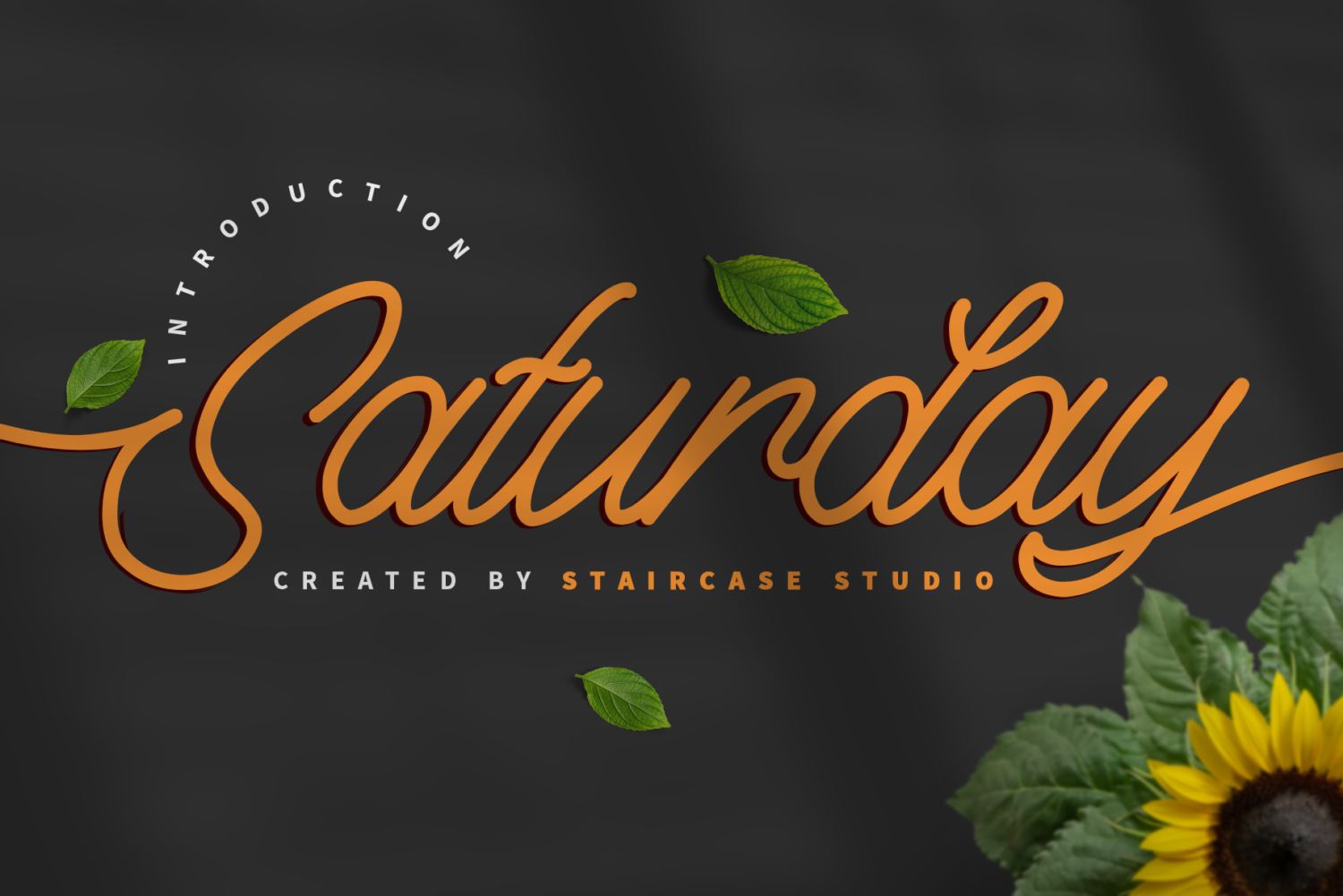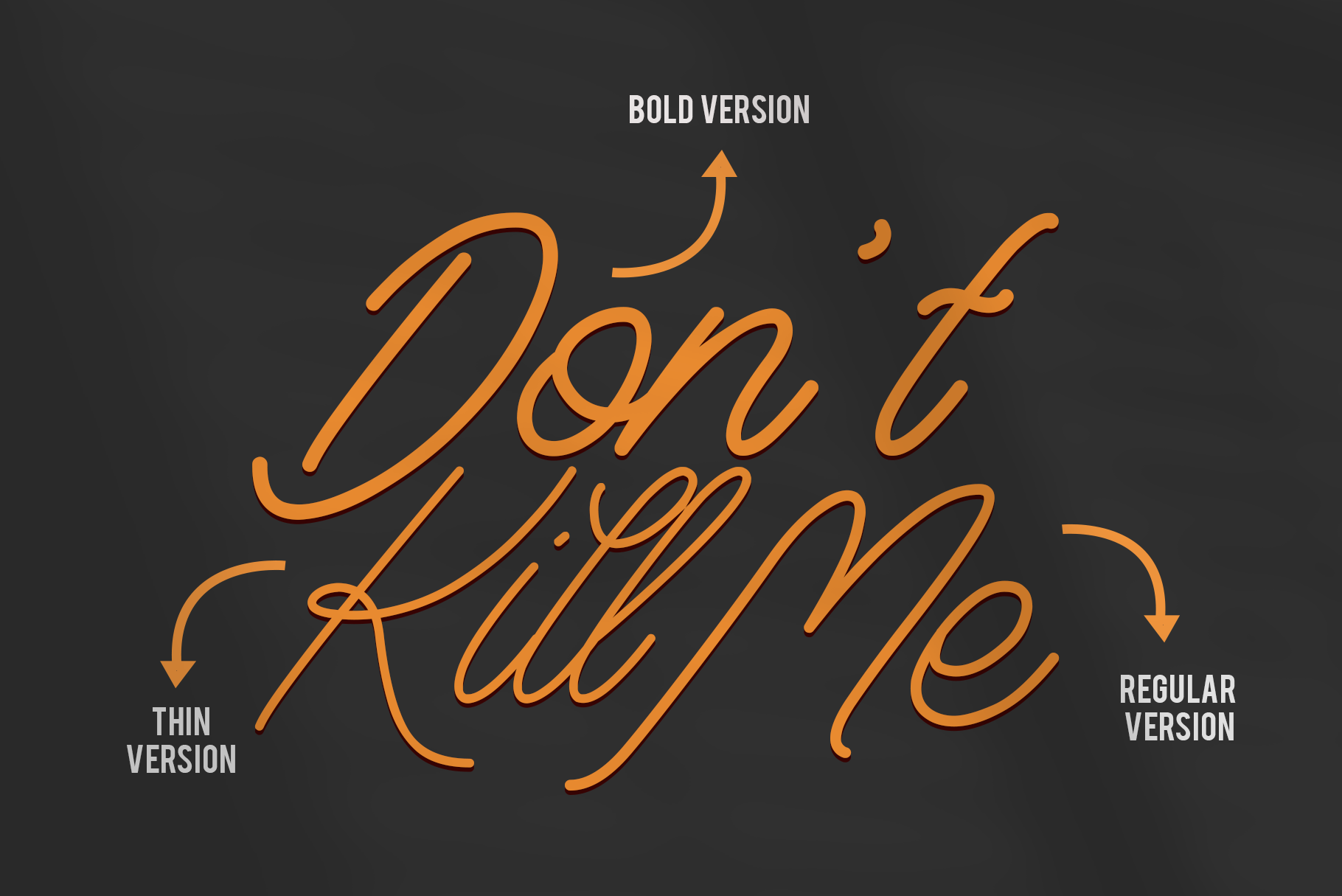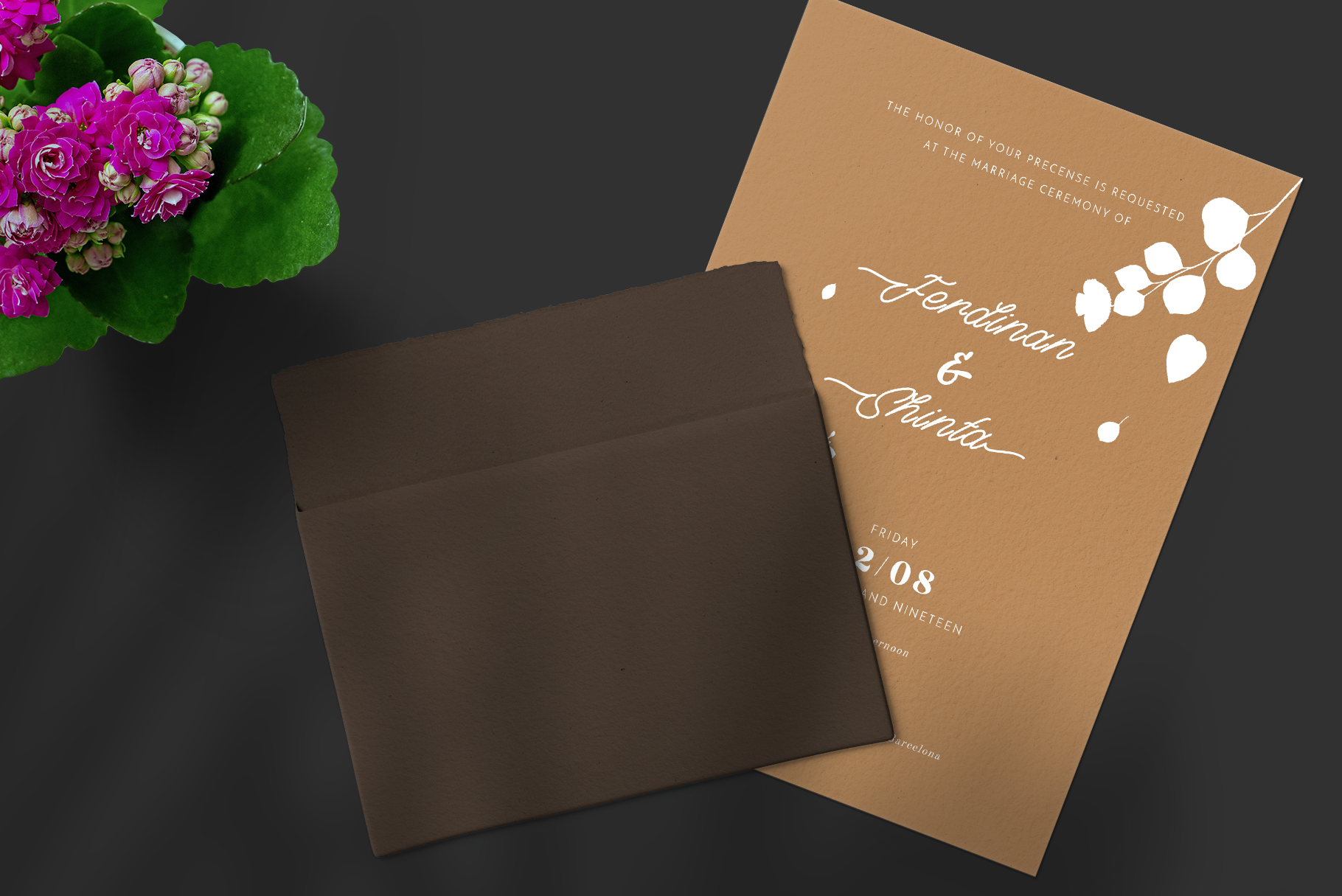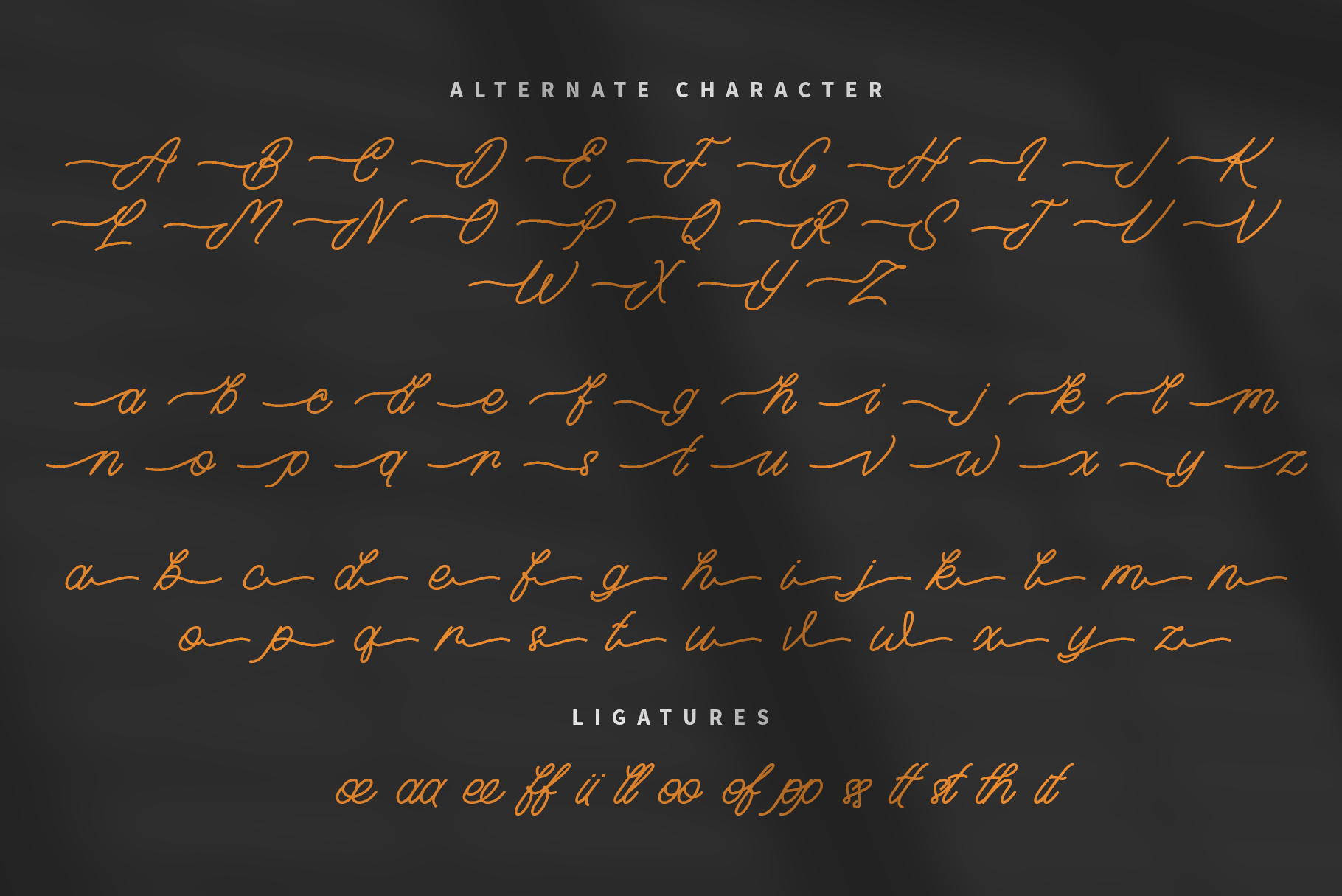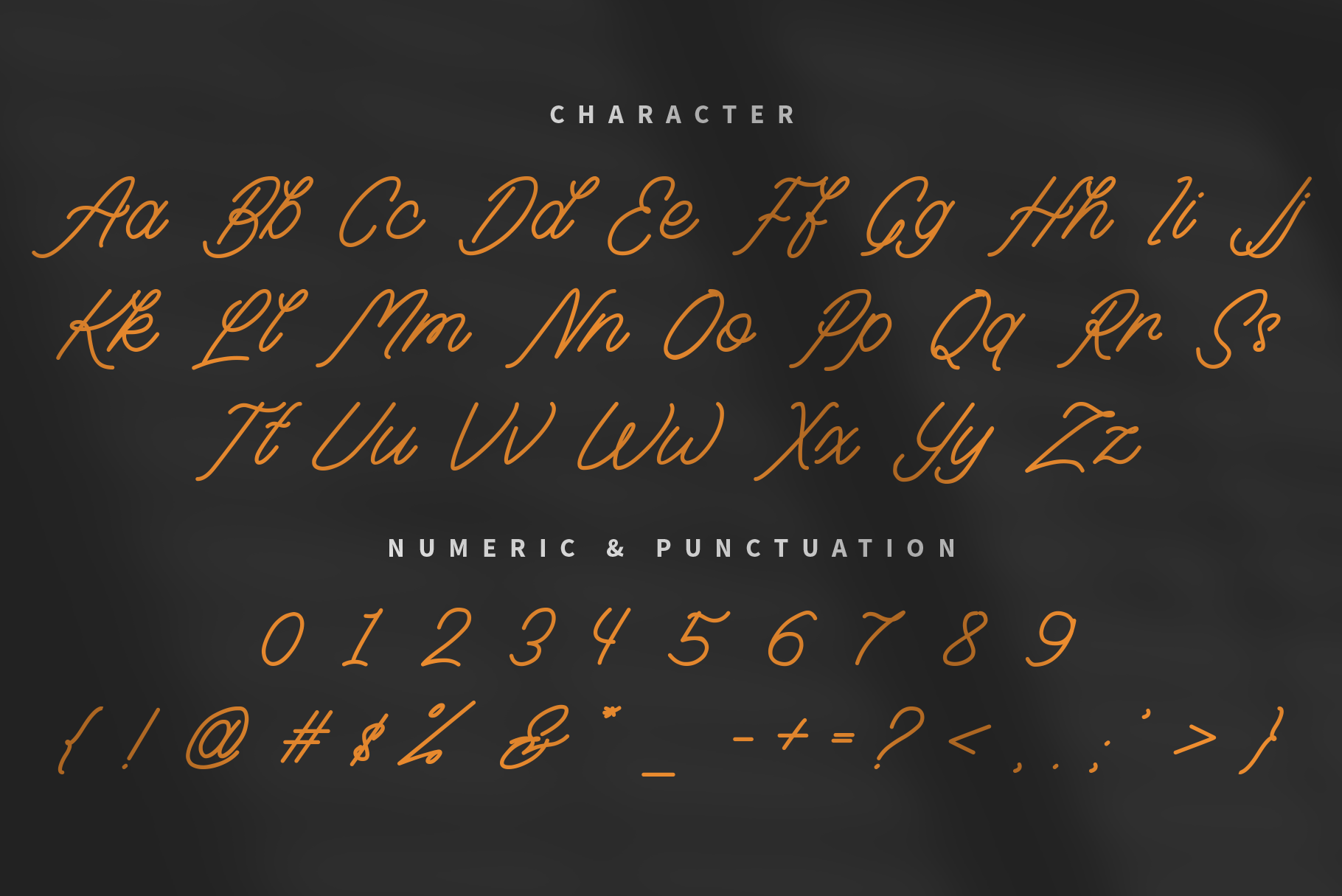
Free Font Saturday
Free Font Saturday with script handwritten styles. A collection of letters and numbers suitable for your projects also great for Logotype, Branding Design, Logo Design, Digital Lettering Arts, T-Shirt/Apparel, Poster, Magazine, Signs, Advertising Design, and any design needs. This free typeface was designed by talented Staircase Studio. If you like it don’t forget to check out the full version.